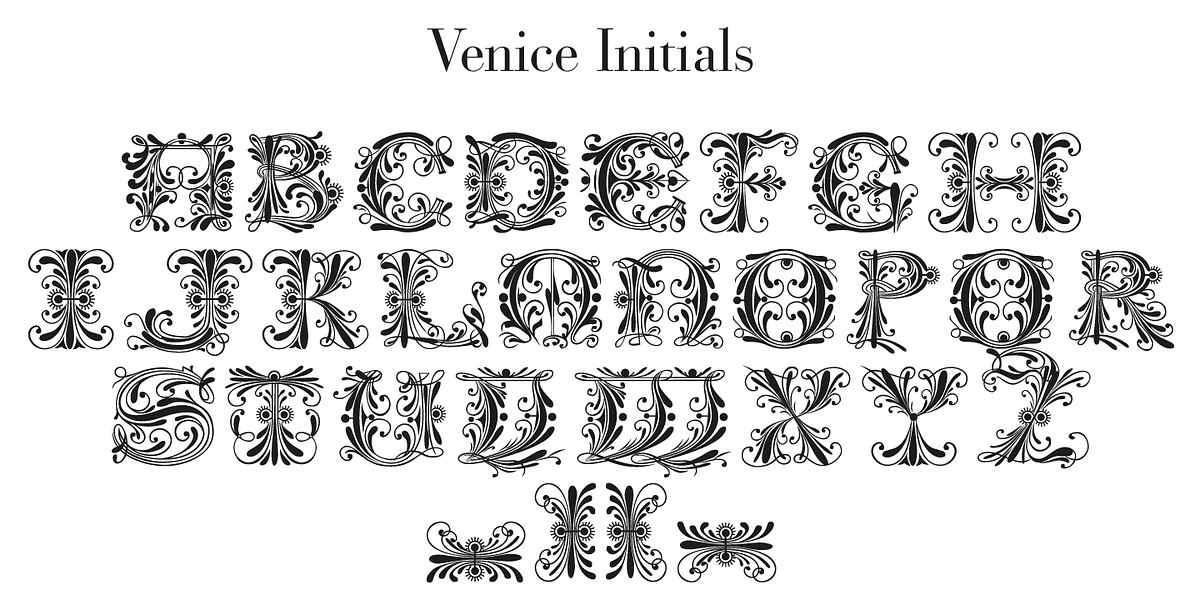
Venice Initials
This font is a redesign of a 15th-century Venetian typeface. It features an all-caps design with ornate details inspired by its historical origins. The font is well-suited for display text applications such as monograms, headlines, and titles, where its elegant and formal appearance can make a strong visual impact.